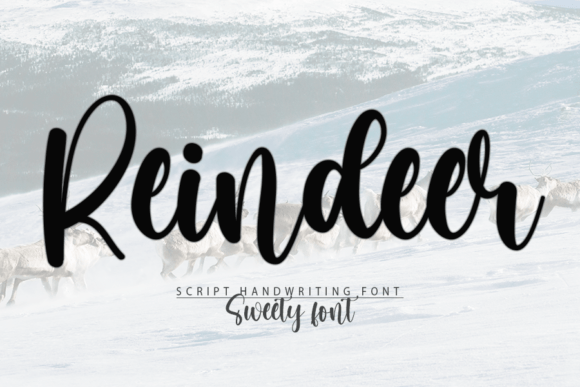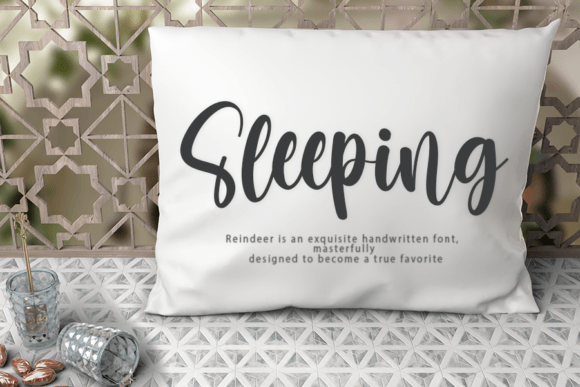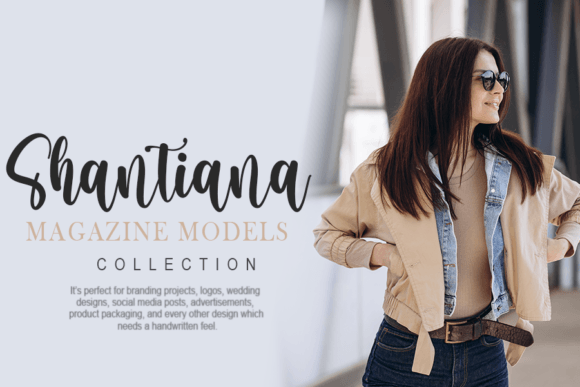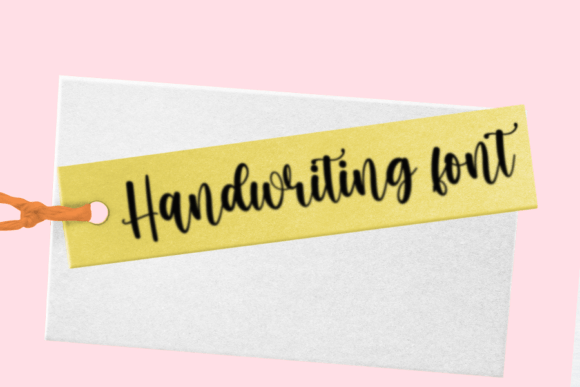
A Neat and Elegant Handwritten Font
Reindeer is an elegant handwritten script font designed to bring style and sophistication to your creative projects. With smooth curves and refined strokes, this font feels timeless and warm. Whether you’re creating wedding invitations, branding materials, or social media graphics, Reindeer will help your work stand out with a polished and personal feel.
Its clean and balanced design makes it perfect for both formal and casual uses.
Reindeer is a versatile font that suits many different design needs. It works beautifully for wedding invitations, menus, and thank you cards. The graceful style creates a romantic atmosphere and leaves a lasting impression.
For branding, Reindeer shines on logos, business cards, and product packaging. Its handwritten elegance gives your brand a premium, approachable look that feels unique.
You can also use this font for inspirational quotes, greeting cards, and personal gifts. The flowing letters and natural feel make any message feel more special.
On social media, Reindeer helps your content look clean, professional, and cohesive. From Instagram posts to Pinterest graphics, this font ensures your visuals grab attention and feel on-brand.
Even with its artistic curves, Reindeer remains clear and legible at any size. The balanced spacing between letters and smooth connections keep your text neat and easy to read, whether it’s a headline or a caption.
For a polished look, pair Reindeer with a clean sans-serif font. Use Reindeer for titles and important details, and the sans-serif for supporting text. This combination creates a modern, well-organized layout that feels inviting.
To highlight Reindeer’s elegant strokes, use soft color palettes and simple backgrounds. Shades like ivory, blush, and muted gray allow the font to shine without competing with other elements.
For wedding or event materials, consider adding delicate floral illustrations or subtle textures that enhance the handwritten feel.
On social media, embrace plenty of white space and minimal decoration. This ensures your designs feel modern and easy to read.
Think about the mood you want to create. Reindeer is perfect for projects that should feel refined, warm, and timeless.
Reindeer isn’t just another handwritten script font—it’s a creative tool that helps your designs look polished and elegant. From logos to wedding invitations, it adapts seamlessly to any style.
Adding Reindeer to your font library means you always have a reliable, versatile option for projects big and small. Whether you’re crafting branding materials or personal gifts, this font brings a touch of sophistication that feels special.